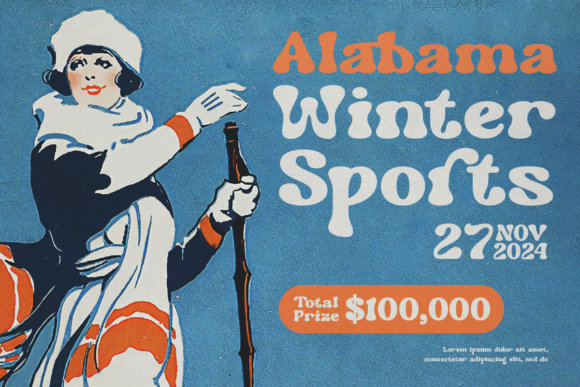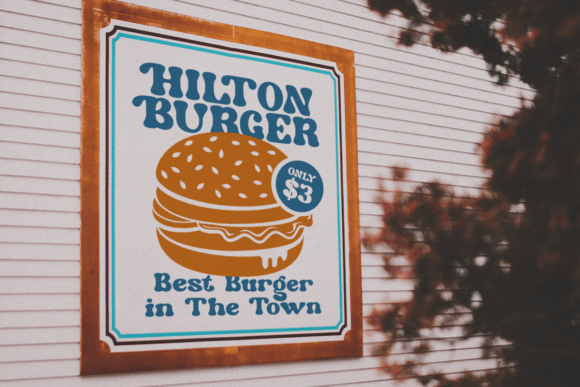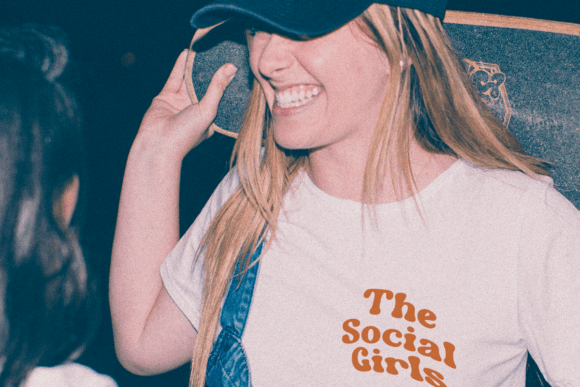
Introduction to Meranti Font
Have you ever stumbled upon an old poster in a vintage shop, and the typography instantly transports you to a bygone era? That’s the magic of the Meranti Font, a retro display font designed to bring a classic touch to your design projects. Whether you’re a seasoned designer or a creative enthusiast, this font is sure to inspire your next project.
With its unique letter shapes and standout characters, Meranti Font is perfect for adding a touch of elegance to your posters, logos, branding, invitations, and other creative projects. What sets it apart is its high-quality design, making it a valuable resource for designers who demand the best. And the best part? You can download it for free, giving you the freedom to experiment with this beautiful font on any transparent background you desire.
As a design resource, Meranti Font is a treasure trove of creative possibilities. Its versatility makes it an excellent choice for designers who want to add a personal touch to their work. Whether you’re working on a large-scale project or a small design task, Meranti Font is sure to bring a smile to your face and a touch of sophistication to your final product.
Key Features of Meranti Font
- High-quality, vector-based design for a transparent background, making it perfect for creative projects that require a clean and minimalist look.
- Comes in a single size, making it easy to use across various design applications and projects.
- Features a high resolution of 300 DPI, ensuring that the font remains crisp and clear even when scaled up or down.
- Designed with a unique and modern aesthetic, making it an excellent choice for designers working on creative projects that require a touch of sophistication.
- Perfect for use in digital design, print design, and even web design, thanks to its high-quality and versatile nature.
Honest Review: Meranti Font
As a designer, I’m always on the lookout for high-quality design resources to enhance my creative projects. Recently, I stumbled upon the Meranti Font, and I must say, it’s a great addition to my design arsenal.
Here’s what works well:
- ✨ Elegant and sophisticated design aesthetic that’s perfect for luxury brand identities.
- ✨ Highly legible and readable, making it ideal for both print and digital applications.
- ⚠️ Limited font styles, which might not be suitable for designers who need a wide range of options.
- ⚠️ Not all font weights are available for download, which can be frustrating when working on a tight deadline.
Overall, I’m impressed with the Meranti Font’s high quality and versatility. While it may not be perfect, it’s a solid choice for designers looking for a reliable and elegant font to enhance their creative projects. The transparent background option also makes it easy to work with, and the free download is a huge plus.
Introduction to Meranti Font
The Meranti Font is a high-quality design resource perfect for creative projects. This free download offers a unique and stylish font that can elevate your design to the next level. With its transparent background, Meranti Font is ideal for overlaying text on images or creating visually appealing graphics.
To use Meranti Font in Adobe Photoshop or Illustrator, import the font file and select it from the font list. You can then use the font to create high-quality designs for your creative project. Meranti Font is perfect for creating posters, flyers, and other print materials.
To use Meranti Font in PowerPoint or Word, follow these steps: install the font on your computer, select the font from the font list, and start designing your project. Meranti Font is a great choice for creating presentations and documents that require a touch of elegance.
To get the most out of Meranti Font, experiment with different font sizes, colors, and combinations. You can also use Meranti Font in conjunction with other design elements to create a unique and visually appealing design.
Meranti Font is perfect for a variety of creative projects, including social media graphics, posters, flyers, presentations, and documents. Its transparent background and high-quality design make it an ideal choice for any project that requires a touch of elegance and sophistication.
Yes, the Meranti Font is designed to be used with a transparent background, making it ideal for use in design projects that require a high level of customization and flexibility.